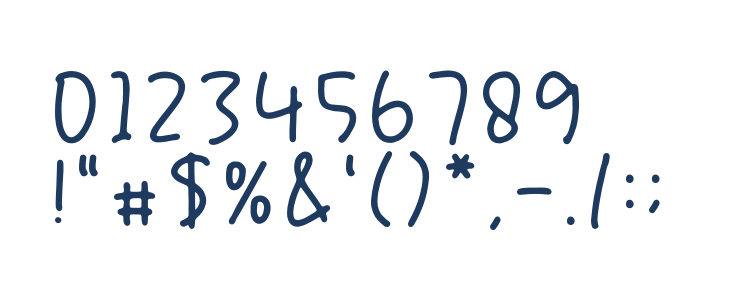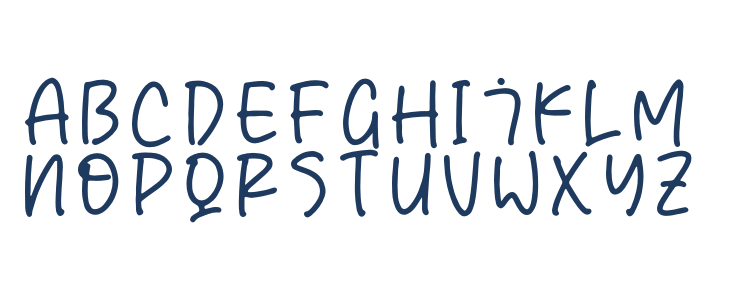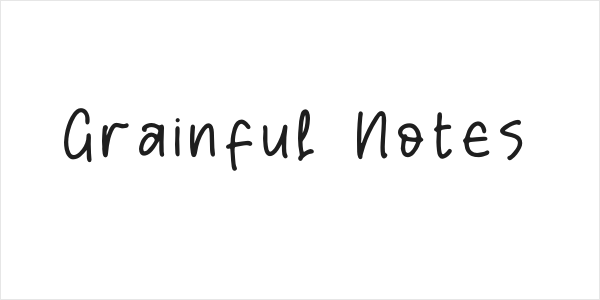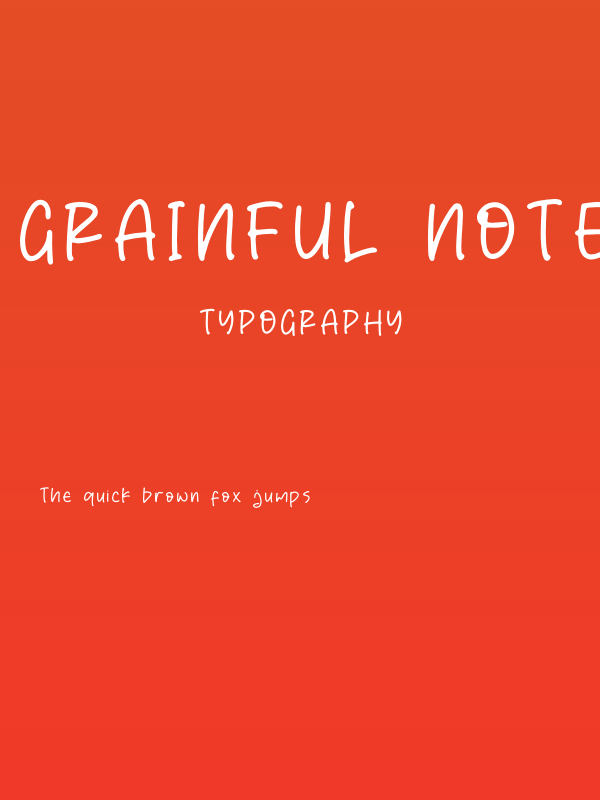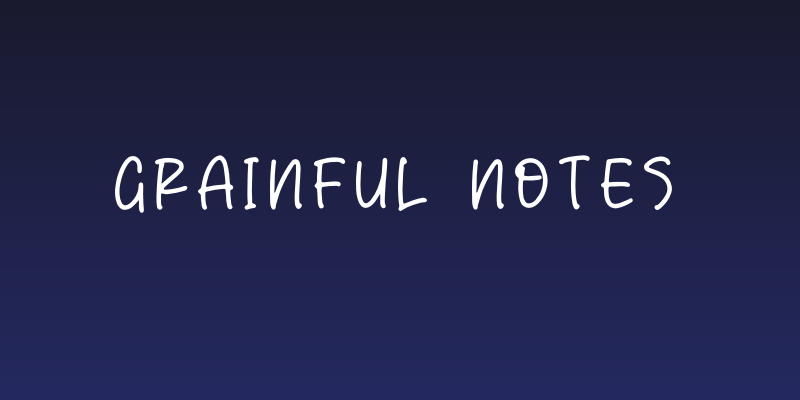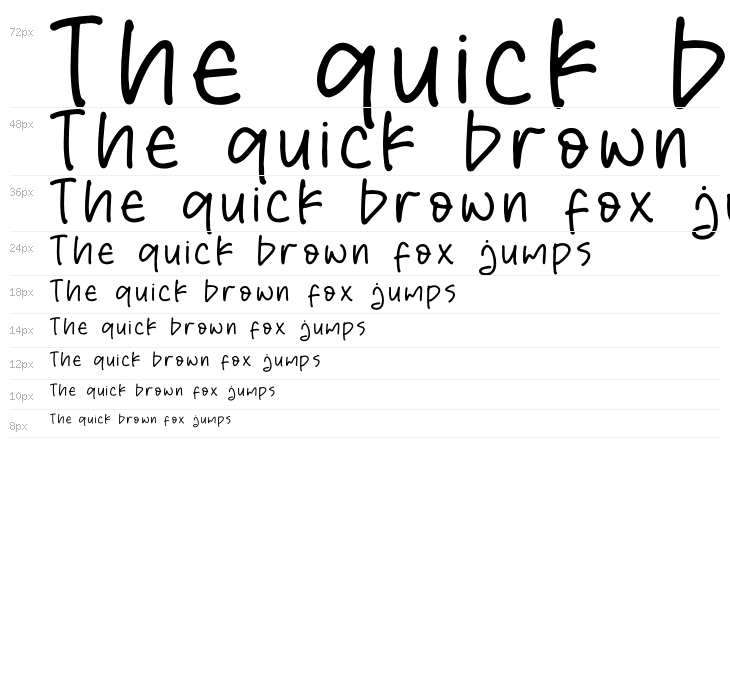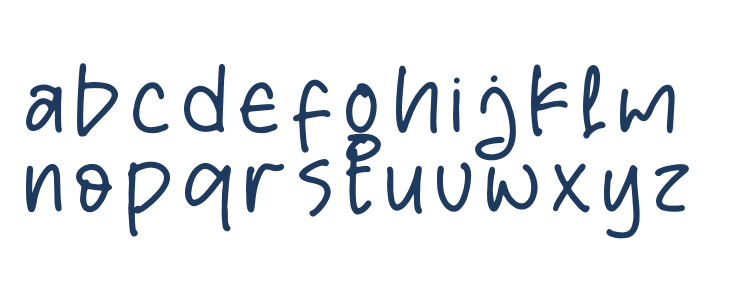
Grainful Notes Font
Grainful Notes Description
A playful, handwritten font with irregular letterforms and a casual, informal appearance. The strokes are consistent in thickness, and the characters have a natural, slightly quirky flow, resembling quick marker or pen writing.
Overall StyleCasual, Playful, Handwritten
Use CaseInvitations, Posters, Social media, Informal branding
Proposed ProjectsGreeting cards, children's books, informal posters, social media graphics, personal branding.